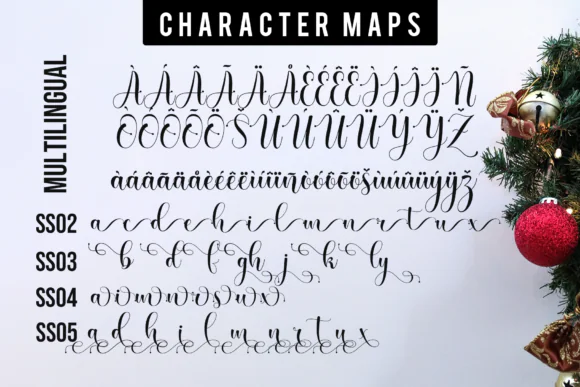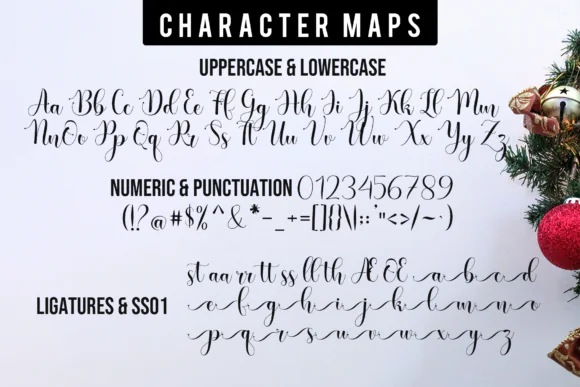
Christmas Bells Font | Modern Playful Handwritten Script Font for Holiday Crafts, Photoshop, Silhouette, Cards, T-Shirts & Festive Designs
Create cheerful and eye-catching holiday designs with Christmas Bells Font, a modern and playful handwritten script font made for crafters, designers, and creative business owners.
This font has a fun handwritten script style that brings a festive, friendly, and handmade feel to your projects. It is suitable for Christmas cards, holiday invitations, t-shirt prints, mugs, stickers, product labels, sublimation designs, digital artwork, wall art, packaging, and social media graphics.
• Christmas greeting cards
• Holiday invitations
• T-shirt and sweatshirt designs
• Mug and sticker designs
• Sublimation projects
• Silhouette craft projects
• Photoshop designs
• Digital scrapbooking
• Product labels and packaging
• Printable wall art
• Festive posters and banners
• DIY holiday crafts
• Modern handwritten script style
• Playful and festive appearance
• Great for crafters and designers
• Suitable for creative holiday projects
• Works well for both print and digital designs
Christmas Bells Font is a beautiful choice for anyone who wants to create warm, festive, and professional-looking Christmas designs with a charming handwritten touch.